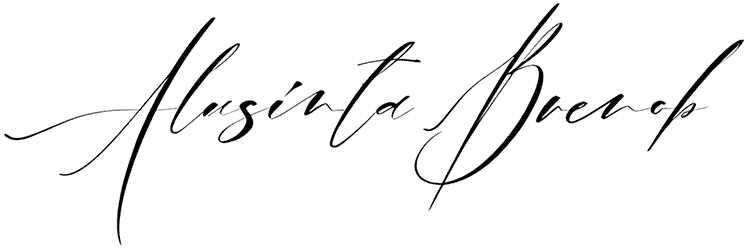
Alusinta Brenob Font
Sometimes the audience anticipates you as a professional graphic designer to include a marvelous certificate font, the same as the Alusinta Brenob, in all of your creative ideas.
By using this angular calligraphy font, you can satisfy customers with the unbelievable quality of your social media posts, applications, stickers, book covers, or gift cards. Aside from not having good readability, it carries a sense of vitality, viability, delicacy, or softness; thus, it can be your first option in difficult projects.